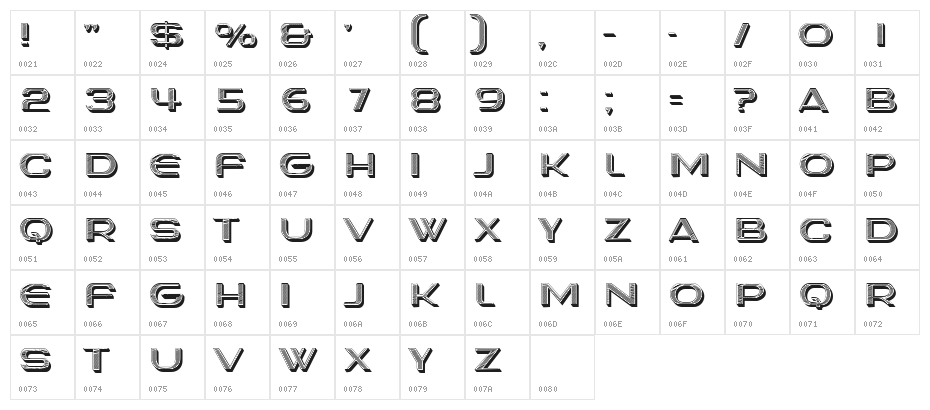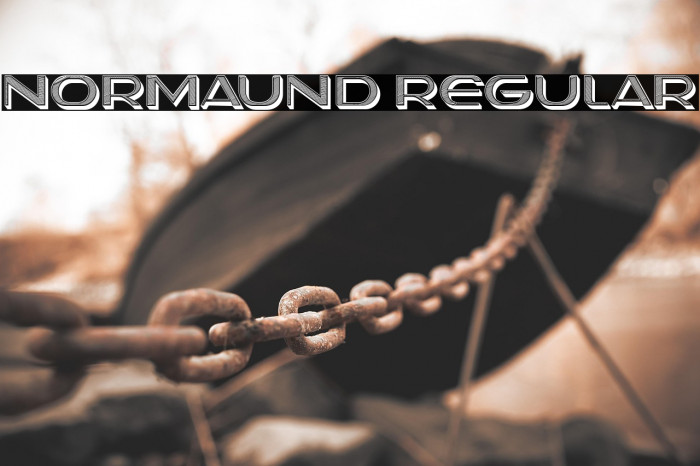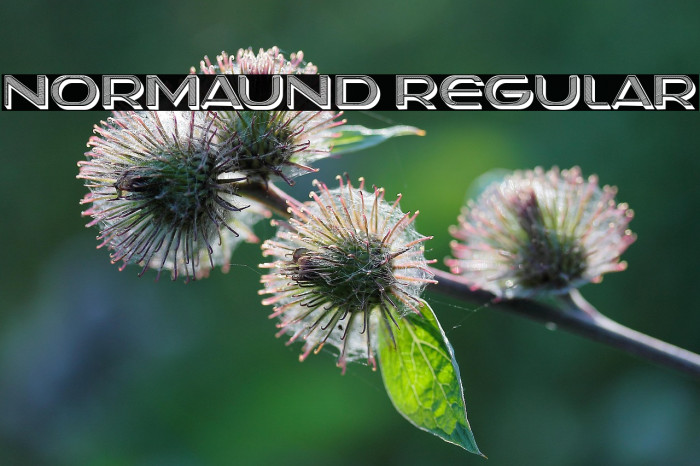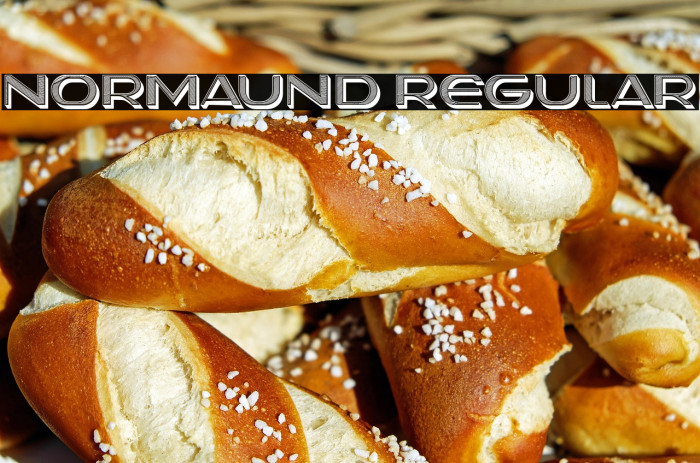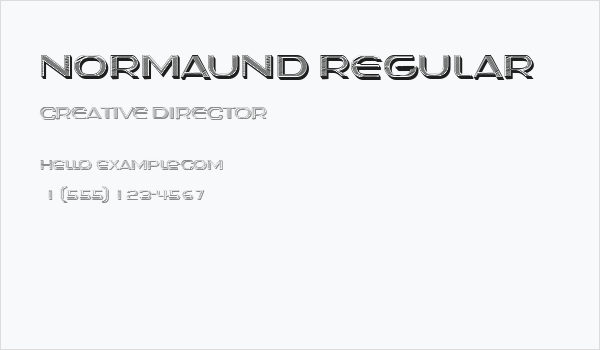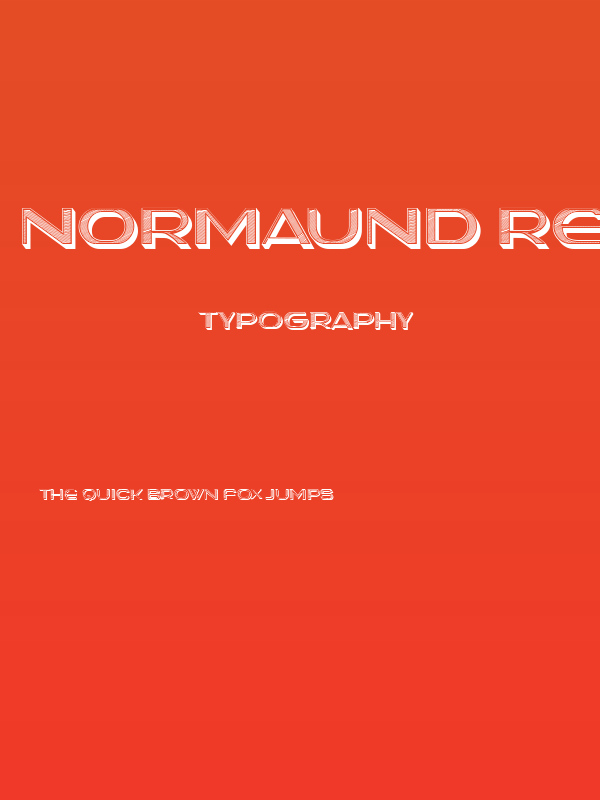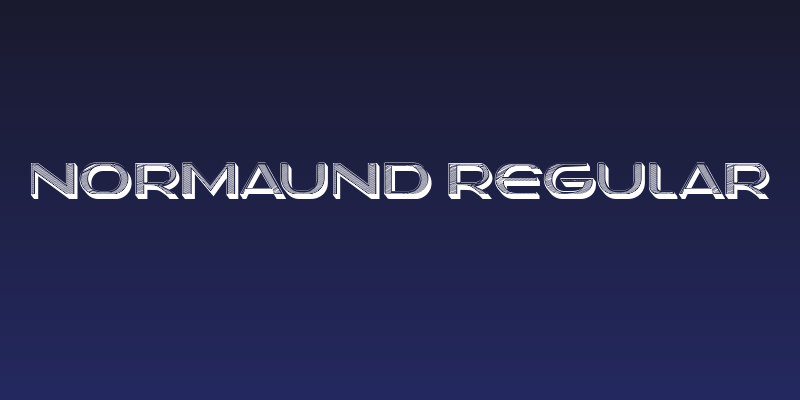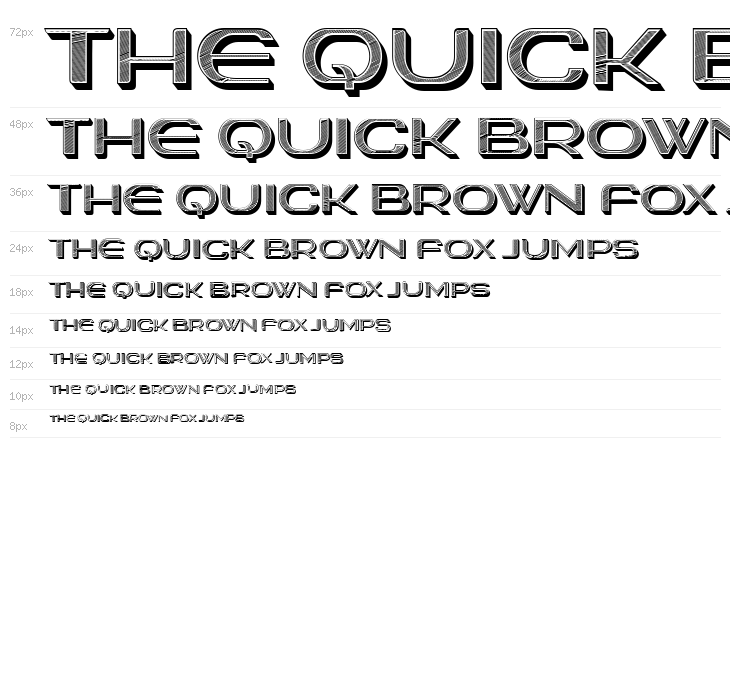
Normaund Regular Font
Normaund Regular Description
This font features a bold, futuristic design with a three-dimensional effect created by shadowing and line detailing. The characters are uppercase and lowercase, with a consistent geometric structure that emphasizes angular lines and sharp edges. The numbers and special characters maintain the same stylistic approach, ensuring uniformity across all glyphs. The font's unique style makes it stand out, with a modern, tech-inspired aesthetic that is both eye-catching and versatile.